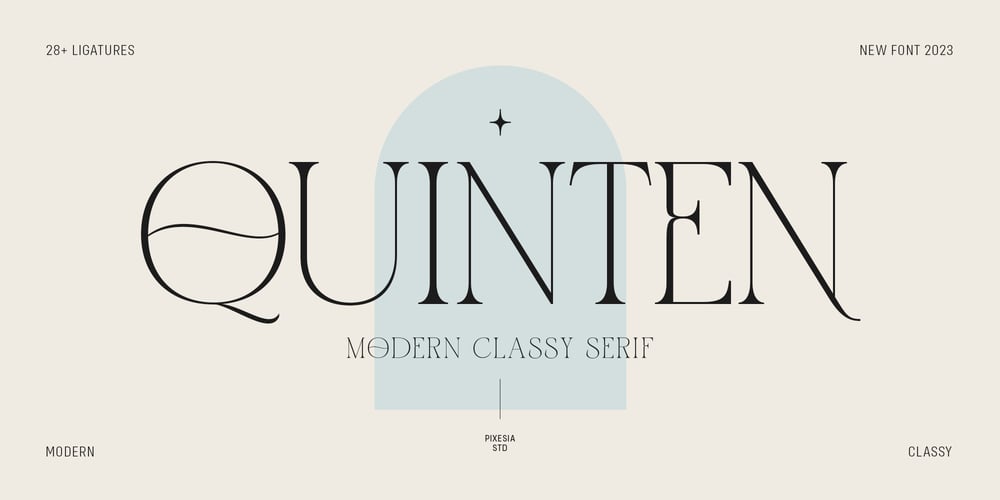
Quinten Font Family was designed by Abul Almaududi and published by Pixesia Studio. Quinten contains 1 styles and family package options. Introducing Quinten – Modern Classy SerifQuinten is a modern and classy serif font that embodies timeless elegance and luxurious appeal. With its aesthetic charm and chic sophistication, Quinten adds a touch of nostalgia to your designs. This versatile typeface is perfect for creating captivating and elegant visuals, making it ideal for high-end branding and refined projects. Elevate your designs with Quinten’s timeless aesthetic, classy and luxurious characteristics, and evoke a sense of elegance that resonates with your audience. Let Quinten take your creativity to new heights with its captivating and nostalgic allure.FEATURES- Stylistic Alternates- Ligatures- PUA Encoded- Uppercase and Lowercase letters- Numbering and Punctuations- Multilingual Support- Works on PC or Mac- Simple Installation- Support Adobe Illustrator, Adobe Photoshop, Adobe InDesign, also works on Microsoft WordHope you Like it.Thanks.